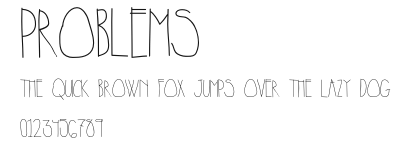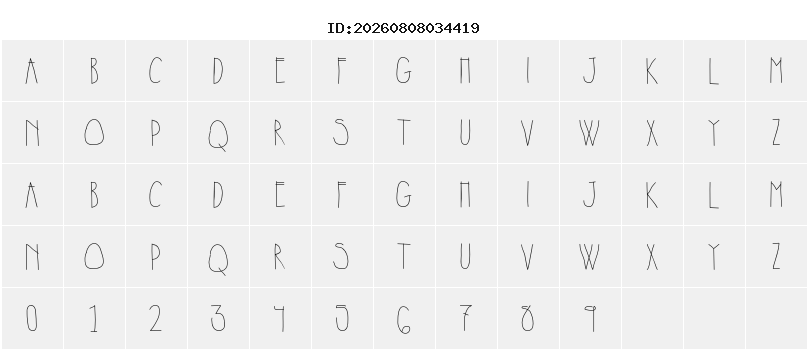
• Font Name: Problems
• Designer: =^_^=
About Problems.otf
Problems.otf is a modern, elegant sans-serif font designed for ultimate readability and visual harmony. Perfect for branding, headlines, web design, and print materials.